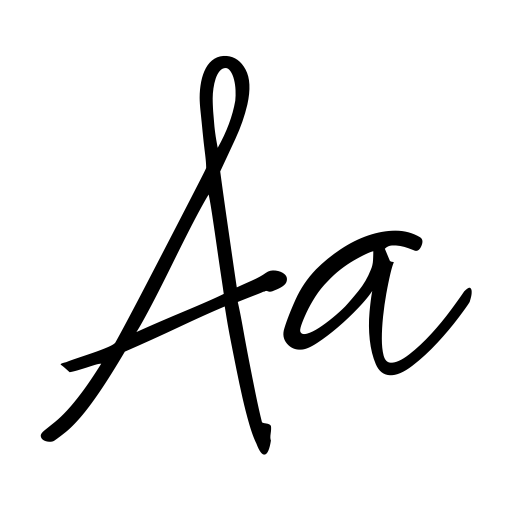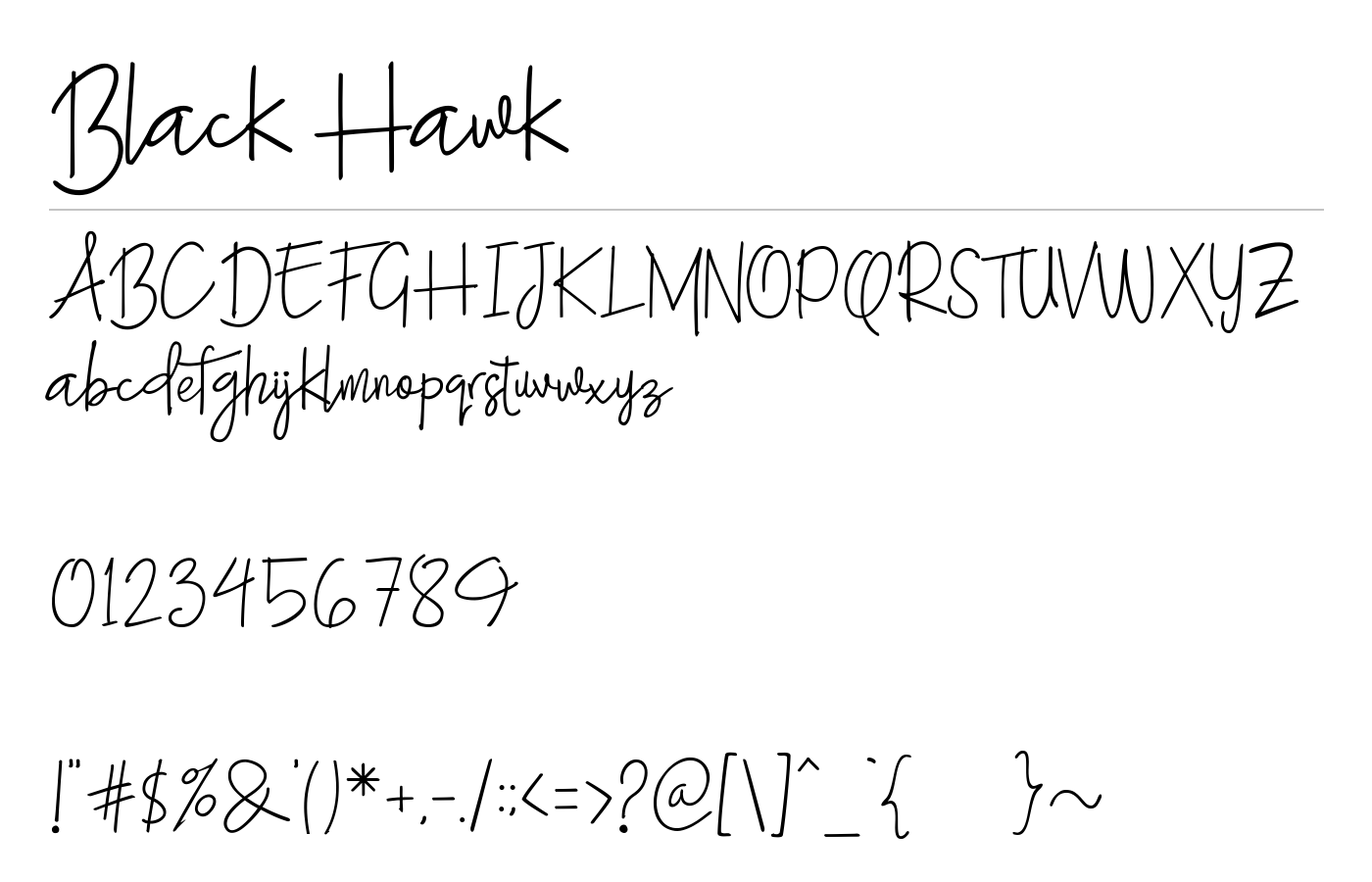
Black Hawk is a casual, handwritten script font characterized by its tall, narrow letterforms and loose, flowing strokes that convey a natural, personal touch. With a light weight and slightly uneven lines, it feels approachable and authentic, making it perfect for creative projects, informal branding, and designs that want to evoke warmth and individuality. This font works well for logos, invitations, and social media graphics where a friendly and expressive handwriting style is desired.
Black Hawk Font
About Black Hawk Font
| Font family | Black Hawk Font |
| Designer | Fargun Studio |